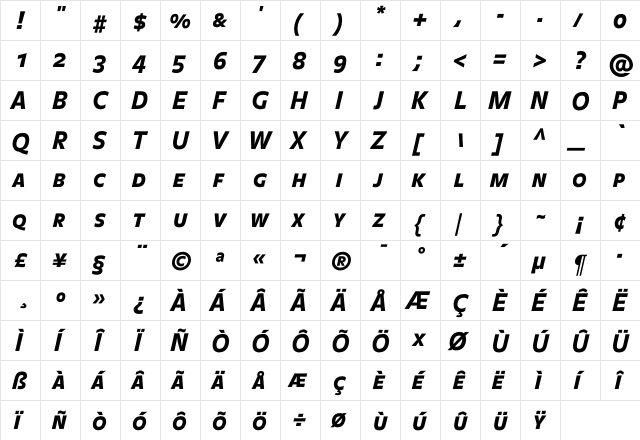
Balance BlackCapsItalic
Design Context for Balance Typeface
Balance takes a measured approach to typography — its balanced proportions and neutral character make it a reliable workhorse for both digital and print work. Its italic angle brings a sense of urgency and motion to the letterforms.
Pro Tip: Try Balance for annotation and caption copy alongside an upright companion — the contrast in angle creates a dynamic but ordered typographic system.